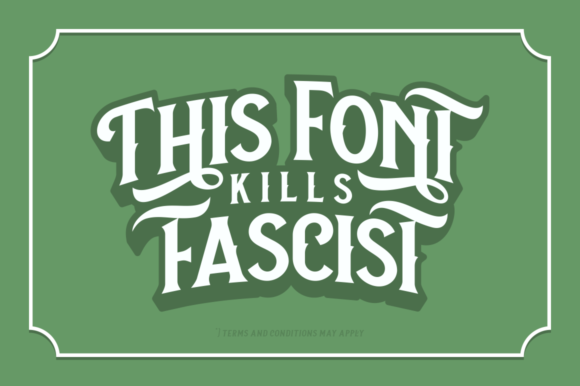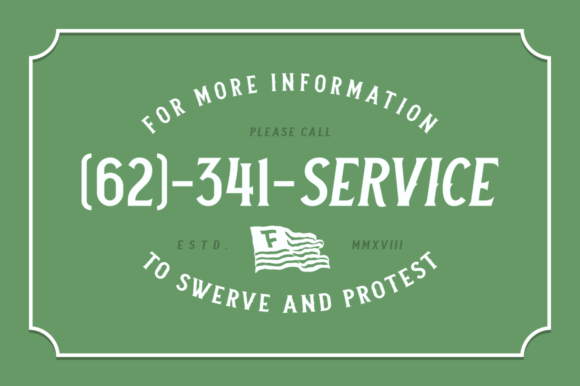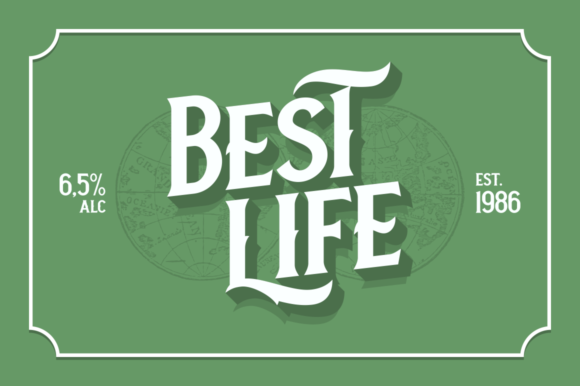
Introduction to Neue Stanley Font
The Neue Stanley is an all-caps serif with strong, clean, and sharp figures.
It was inspired by the classic letters that were used in the old advertisements (posters, labels, etc) Whether you’re working on modern or classic themed designs, this font is a must have on your designing arsenal.
Neue Stanley Font offers exceptional quality and versatility, making it a valuable addition to your design toolkit. Whether you’re creating for personal projects or commercial use, Neue Stanley Font delivers professional results.